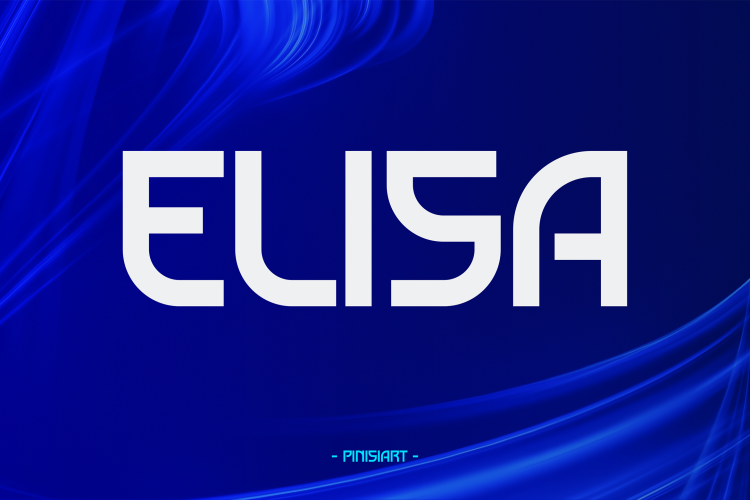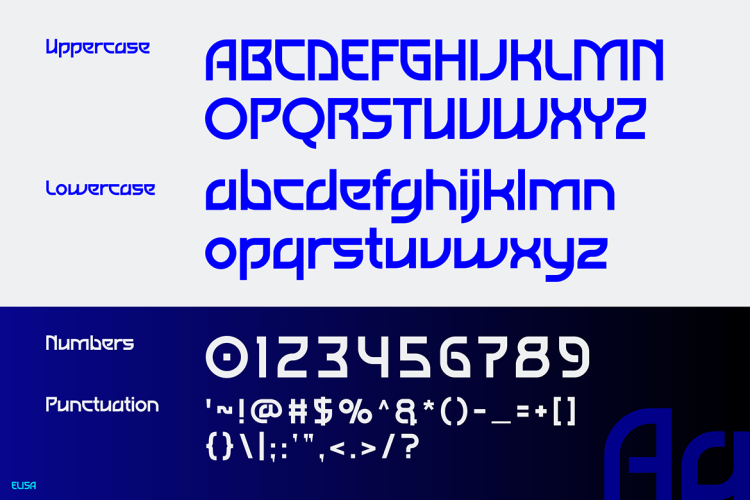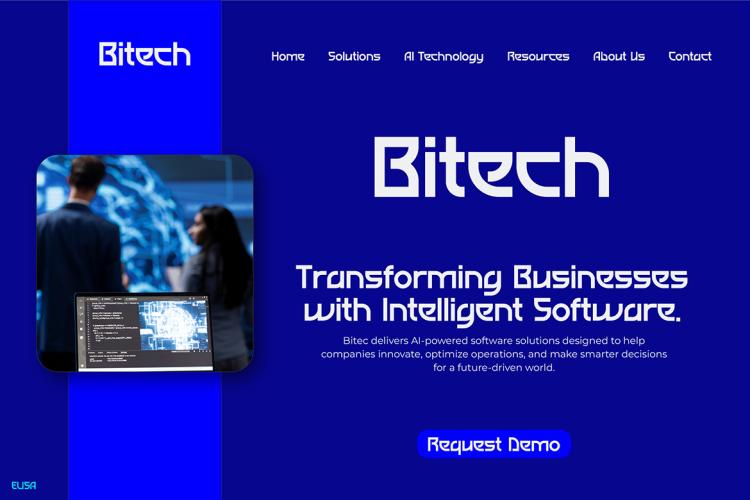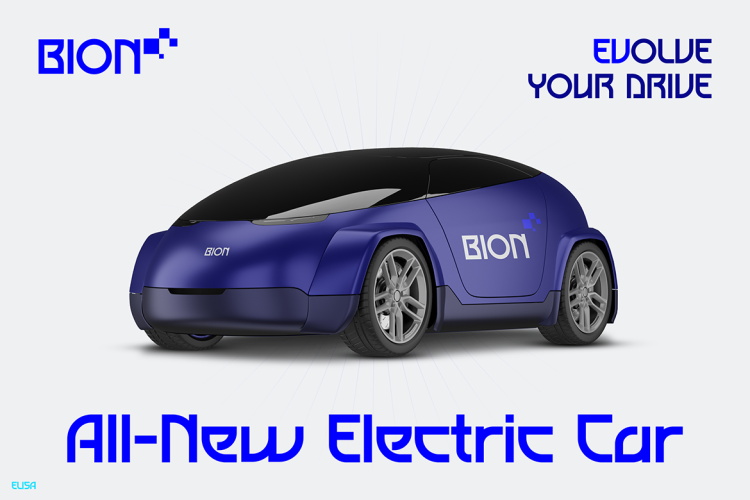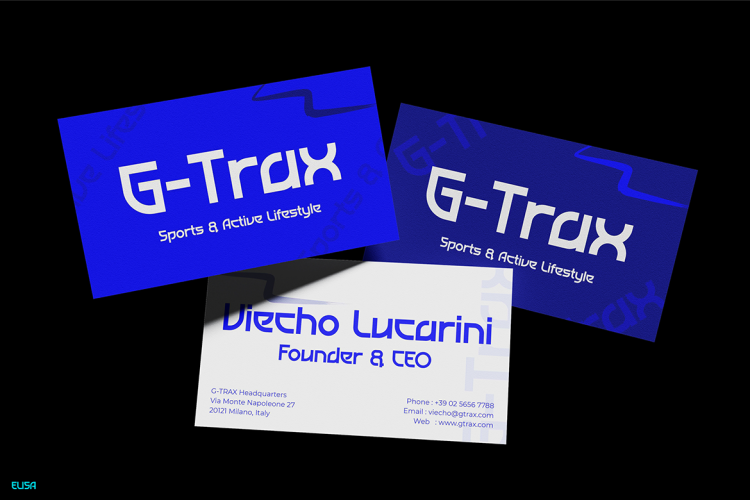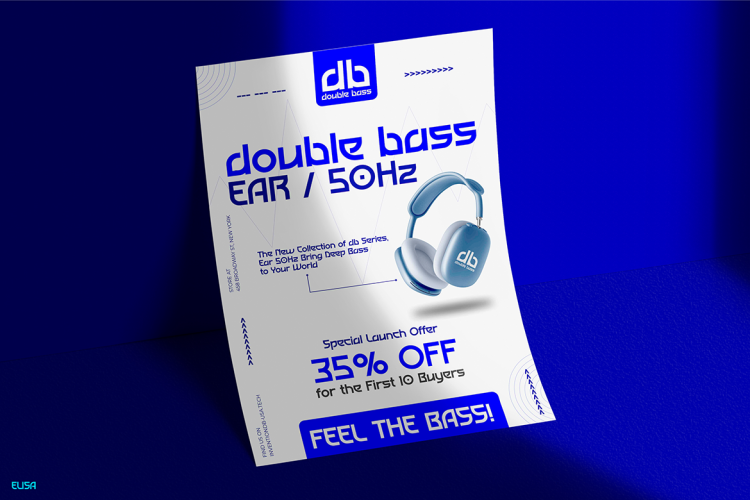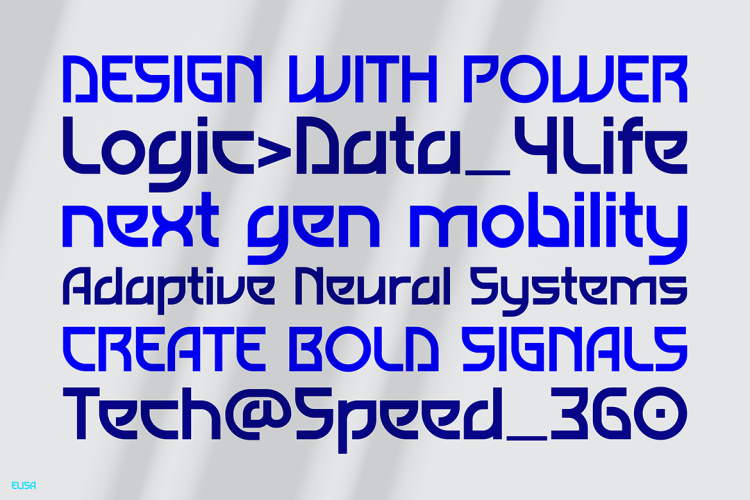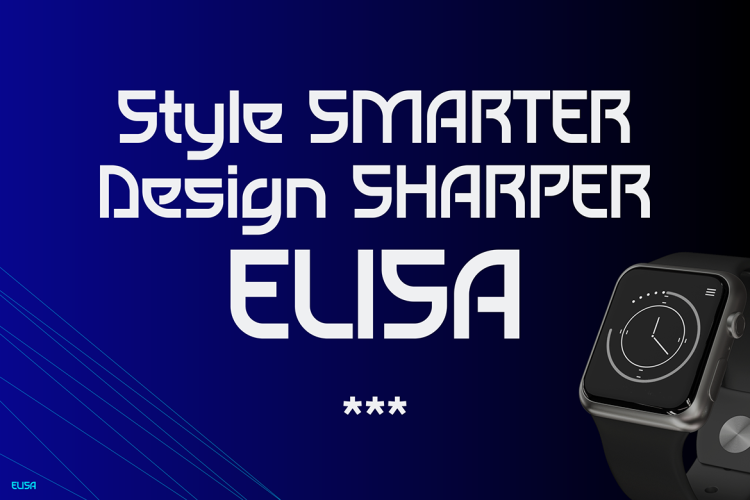
Elisa โ Modern, Bold, and Versatile
Instagram Font Elisa is a futuristic typeface that adds strong character to any design. It combines clean geometric shapes with modern minimalism. Therefore, it feels unique, stylish, and still very easy to read. Each letter is carefully crafted to look sharp and consistent. As a result, Elisa works both for digital use and for print projects. You can use it in tech-inspired branding, bold advertisements, or stylish packaging. Moreover, it looks amazing in social media posts, especially on Instagram.
Unlike many fonts that focus only on style, Elisa balances beauty with usability. This means you can apply it to large headlines or smaller body text without losing clarity. In addition, its futuristic tone makes it stand out against ordinary typefaces, giving your projects a premium edge.
Instagram Font Elisa Perfect for
Elisa is versatile, and it adapts well to many needs. For example, graphic designers can use it to create futuristic layouts and strong headlines. Entrepreneurs and business owners can rely on it to build a modern brand identity. In addition, social media creators and influencers on Instagram will find it perfect for posts, reels, and stories. The font also fits tech startups, app developers, and digital agencies that want to show innovation.
Moreover, it helps students, content creators, and online shop owners design presentations, product labels, and marketing visuals. Thus, Elisa is not limited to one groupโit is useful for everyone who values modern design. With its bold look, it can even inspire creative projects in fashion, gaming, or music promotion.
Why Youโll Love It
Elisa is more than a font. Instead, it is a creative tool that saves time and adds impact. The futuristic look gives your projects personality, while the clean style ensures easy readability. Moreover, it works across branding, campaigns, and personal projects. On Instagram, Instagram Font Elisa makes visuals bold and memorable. For campaigns, it creates headlines that quickly capture attention.